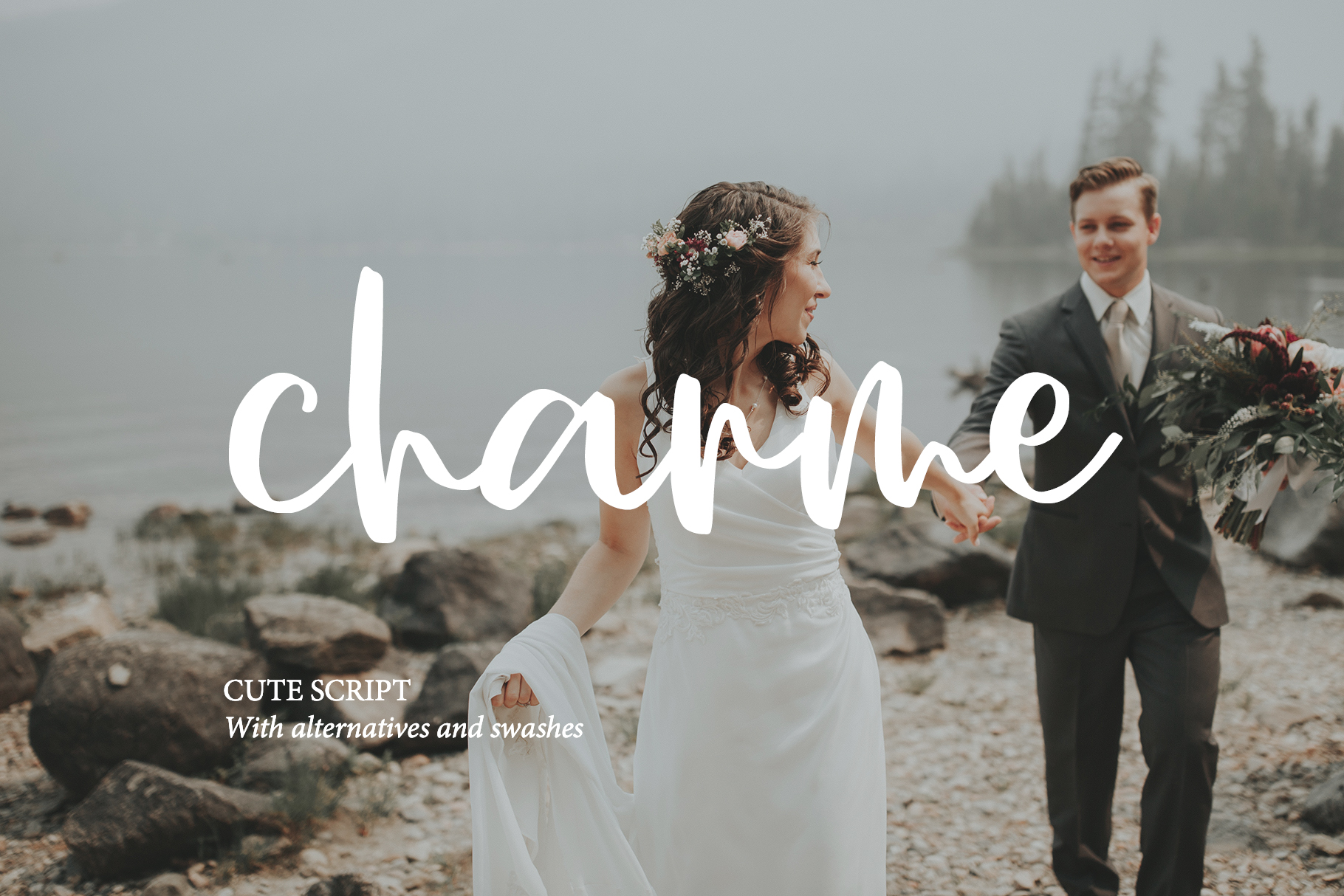
CHARME SCRIPTS cript Font
My new font is beautiful and smooth modern calligraphy with a floating baseline. Charme will look beautiful on Christmas and holiday invitations, wedding invites and stationery, logos, and more. I love using it for emphasis words and pairing it with serifs